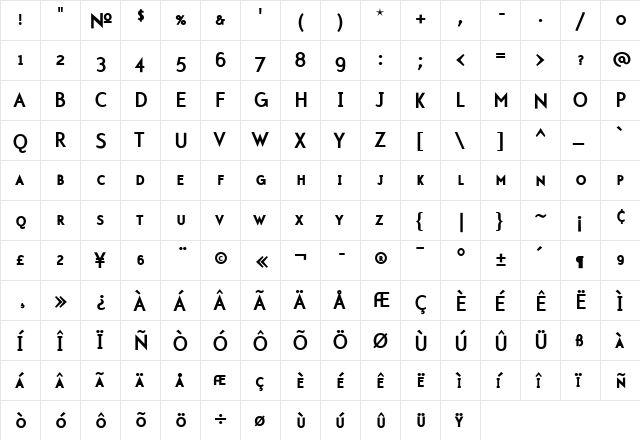
Mercury SmallCaps Bold
Design Context for Mercury SmallCaps Typeface
Mercury SmallCaps takes a measured approach to typography — its balanced proportions and neutral character make it a reliable workhorse for both digital and print work. The heavy weight commands attention and anchors typographic hierarchies.